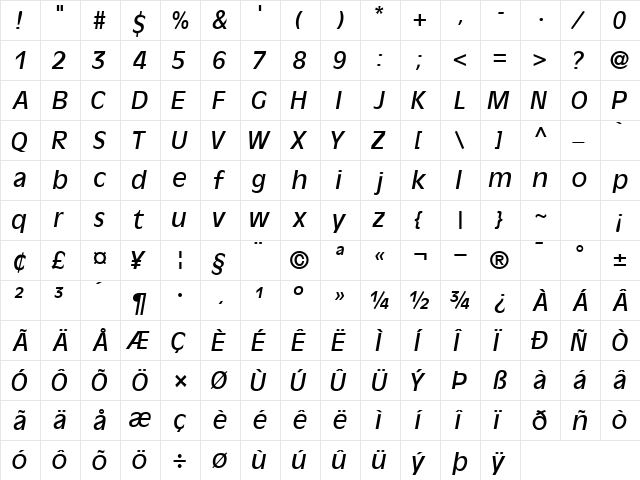
DecadeSSK Italic Font Preview
DecadeSSK Italic
Design Context for DecadeSSK Typeface
DecadeSSK takes a measured approach to typography — its balanced proportions and neutral character make it a reliable workhorse for both digital and print work. The slanted form adds forward momentum and visual energy.
Pro Tip: Try DecadeSSK for annotation and caption copy alongside an upright companion — the contrast in angle creates a dynamic but ordered typographic system.